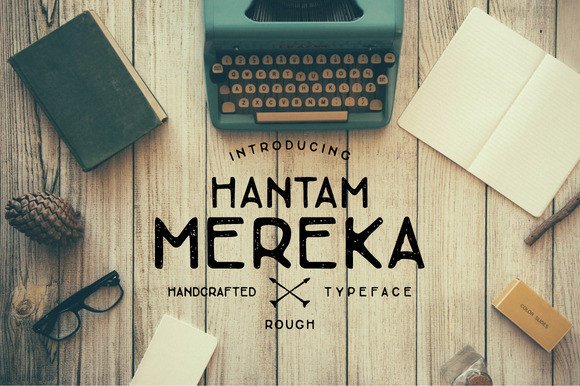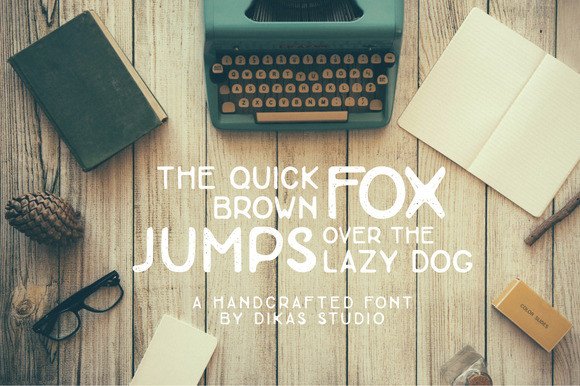
Introduction to Hantam Mereka Font
Have you ever found yourself in the middle of a creative project, struggling to find the perfect font to bring your vision to life? I know I have. The search can be overwhelming, especially when you’re looking for something that’s not only high quality but also unique and eye-catching.
That’s where the Hantam Mereka Font comes in – a rough Sans Serif font that’s perfect for designers who want to add a touch of raw, edgy charm to their work. With its very basic letters and punctuation, this font is a design resource that’s both versatile and easy to use. Plus, it’s available for free download, making it a valuable asset for any creative project.
Whether you’re working on a graphic design project, a logo, or even a social media campaign, the Hantam Mereka Font is a great choice for anyone who wants to add a bit of personality to their work. And with its transparent background, you can easily layer it over any image or design element to create a truly unique look.
Key Features of Hantam Mereka Font
- Unique, handcrafted design with a distinctive style that sets it apart from other fonts
- Perfect for use in various creative projects, from graphic design to digital art
Honest Review: Hantam Mereka Font
As a designer, I’m always on the lookout for high-quality design resources that can elevate my creative projects. Recently, I came across the Hantam Mereka Font, and I’m excited to share my honest review.
- ✨ Unique and bold design style that’s perfect for making a statement
- ✨ High-quality fonts that are ideal for creative projects, from posters to social media graphics
- ⚠️ Limited font styles available (although the ones they have are great!)
- ⚠️ Not suitable for formal or corporate designs (more for creative and playful projects)
Overall, I’m impressed with the Hantam Mereka Font. It’s a great addition to any designer’s toolkit, especially for creative projects. With its unique design style and high-quality fonts, it’s a must-have for anyone looking to add some flair to their work.
Tips for Getting the Most Out of Hantam Mereka Font
To maximize the effectiveness of Hantam Mereka Font, consider the following tips:
- Experiment with different font sizes and styles to achieve the desired visual impact.
- Use the font in combination with other design